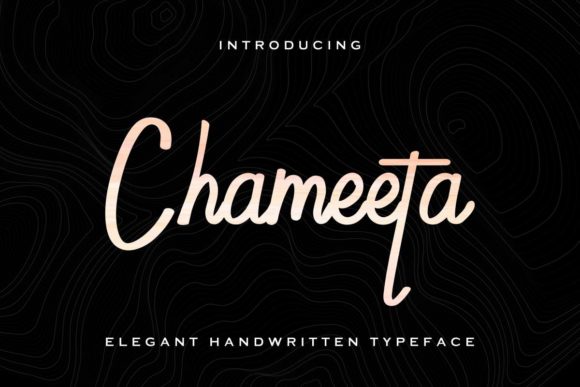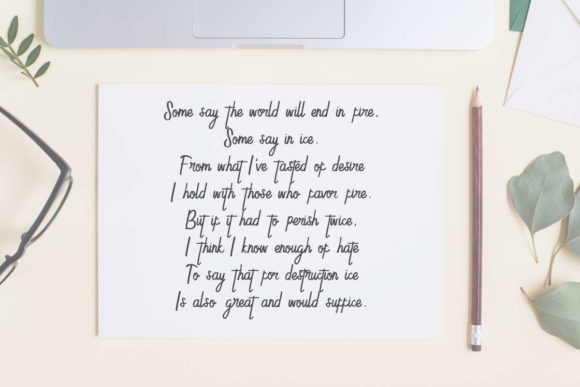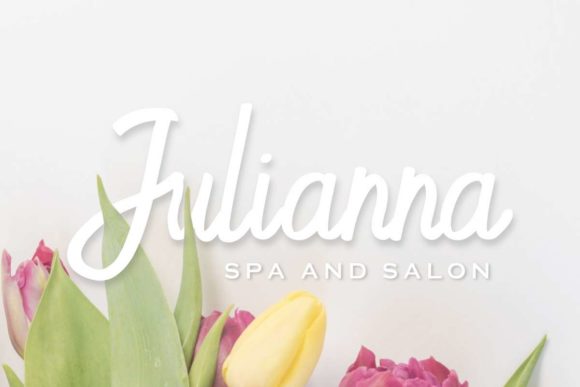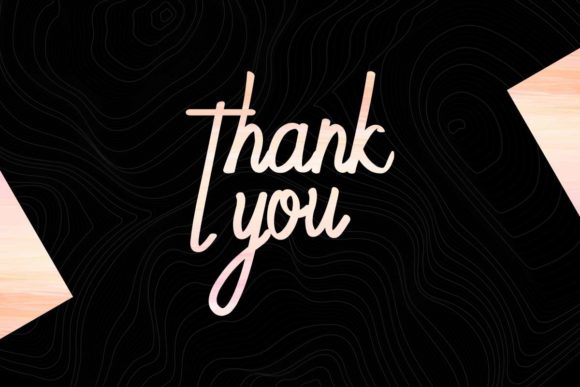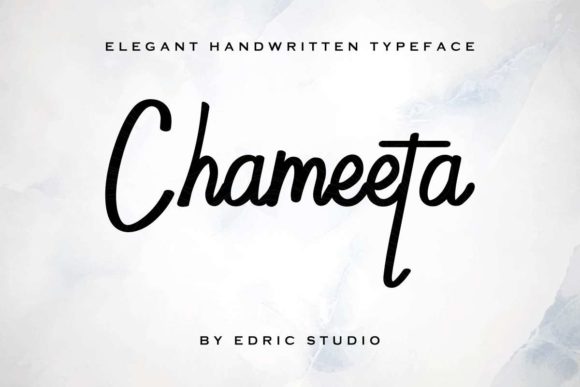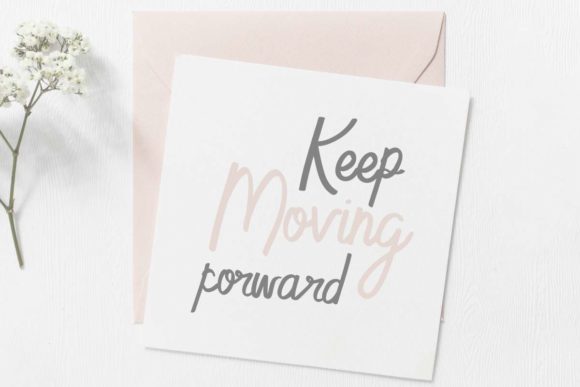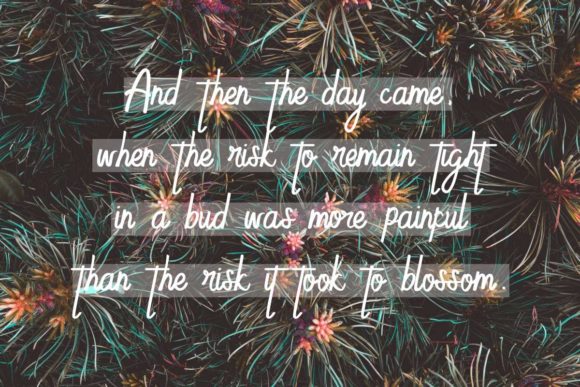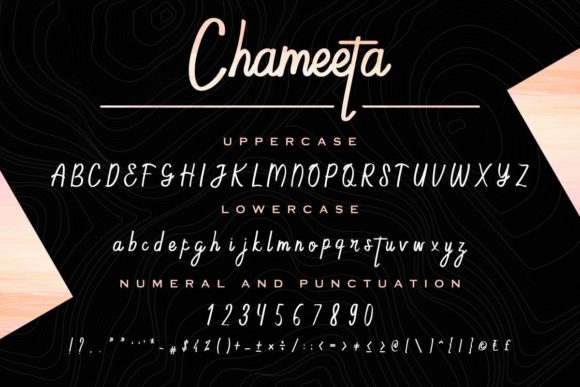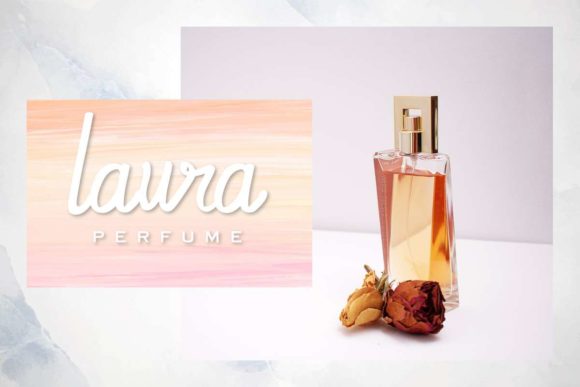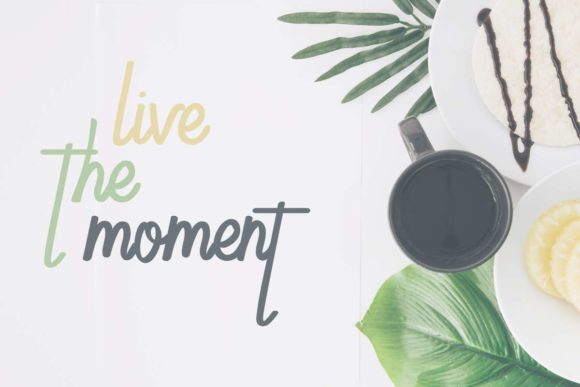
Chameeta Font
About Chameeta Font
Chameeta feels elegant, modern and fancy, and will turn any design idea into a true standout. Fall in love with its timeless charm.